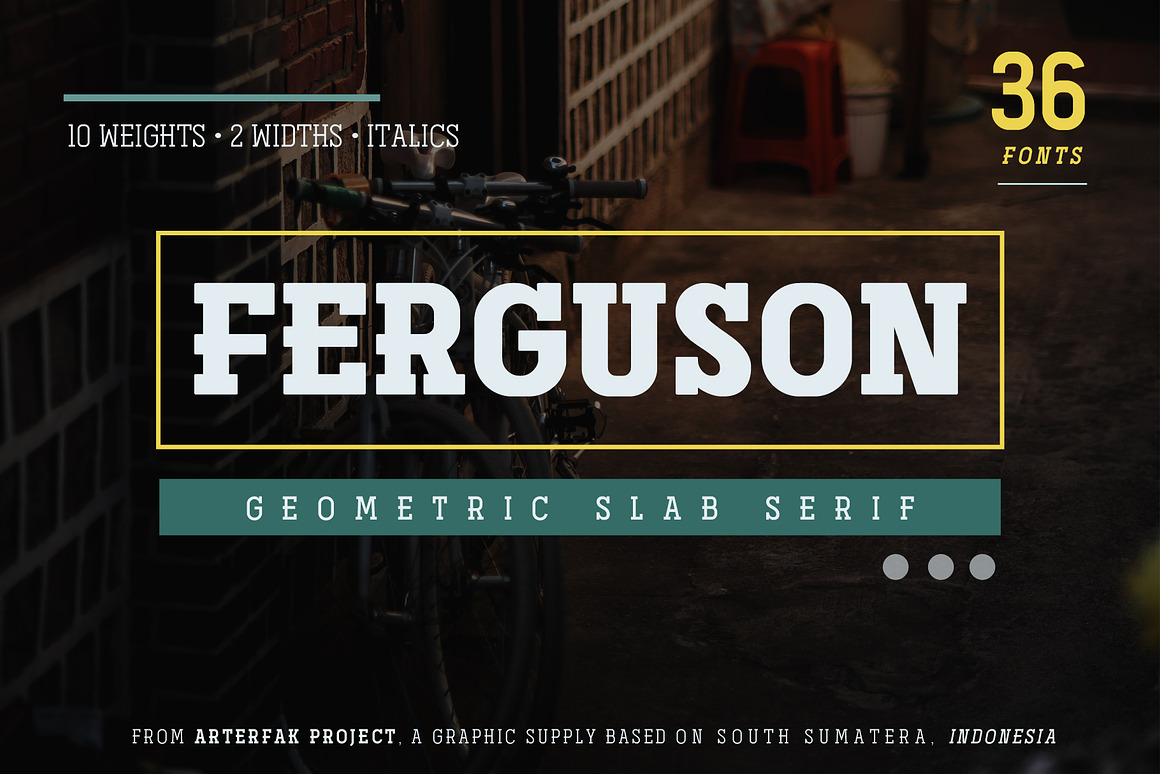
Ferguson Slab Font Family
Ferguson Slab Font Family is perfect for industrial branding projects, manufacturing company logos, construction firm identities, engineering presentations, urban design portfolios, and robust signage systems. This powerful typeface excels in architectural documentation, heavy machinery branding, workshop materials, and any application where strength, durability, and industrial heritage communicate unwavering reliability and craftsmanship.
What makes Ferguson Slab Font Family so exciting is its remarkable ability to embody the spirit of industrial strength and manufacturing excellence through its bold slab serif construction. The font features thick, sturdy serifs and robust letterforms that evoke the solid foundations of industry and engineering. Its commanding presence and reliable character make it perfect for brands that build, create, and manufacture with precision and pride.
Ferguson Slab Font Family comes in a comprehensive industrial family including Thin, Light, Regular, Medium, Bold, and Ultra Bold weights. Each style features complete uppercase and lowercase character sets, technical symbols, industrial numerals, and mechanical punctuation marks. The font family also includes condensed and extended variants, italic styles, and decorative alternates that provide extensive customization options for complex industrial communications.
The font's industrial character makes it particularly suitable for construction companies, manufacturing firms, engineering consultancies, and heavy industry operators. Its superior legibility ensures that Ferguson Slab Font Family performs exceptionally across all industrial applications while maintaining its distinctive robust character. The font's ability to convey strength and reliability makes it invaluable for any project requiring typography that builds trust and communicates industrial expertise with uncompromising quality.